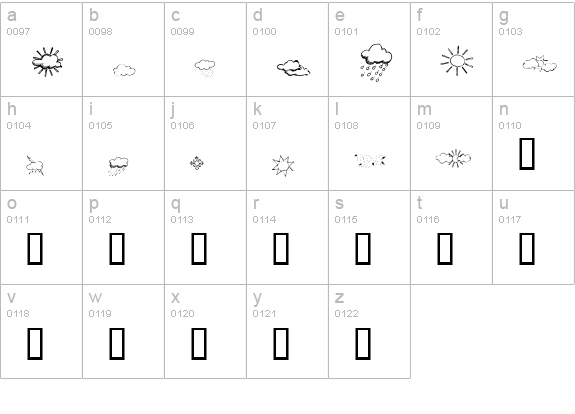
KR Weather Dings Font Details
KR Weather Dings font is a whimsical and playful typeface that features a variety of weather-related symbols and icons. From suns and clouds to raindrops and lightning bolts, this font is perfect for adding a touch of fun to your design projects. The hand-drawn style of the characters gives them a unique and charming look, making them stand out in any layout. Best of all, KR Weather Dings font is completely free to use! You can download it at FontsMarket.com and start incorporating these delightful weather symbols into your designs today. Whether you're working on a weather forecast graphic, a children's book illustration, or simply want to add a touch of whimsy to your project, this font is sure to bring a smile to your audience's face. Download KR Weather Dings font for free now and let your creativity shine!